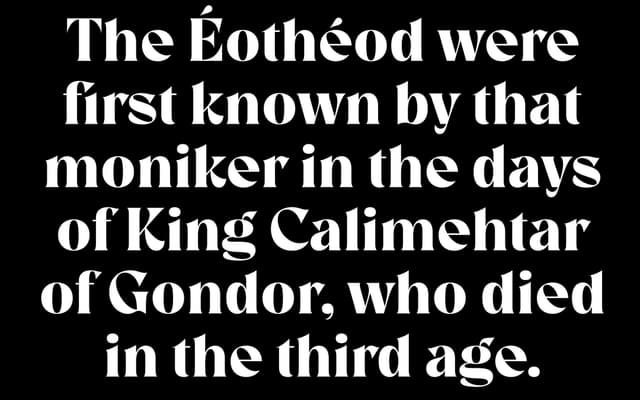
A bold, high-contrast display serif in the neoclassical tradition, offered in a single expressive weight with over 30 alternate characters and ligatures.
Room 205 draws on neoclassical serif conventions to produce a bold, characterful display face. Its 274-glyph set includes more than 30 alternates and ligatures, giving the typeface flexibility for headline and editorial work where variation matters. The foundry frames it with a fictional vignette set in a hotel where Tolkien was once a guest, gesturing at the literary and handcrafted sensibility behind the design.
The foundry explicitly describes Room 205 as being in the neoclassical tradition, with high contrast strokes and expressive letterforms consistent with that classification.